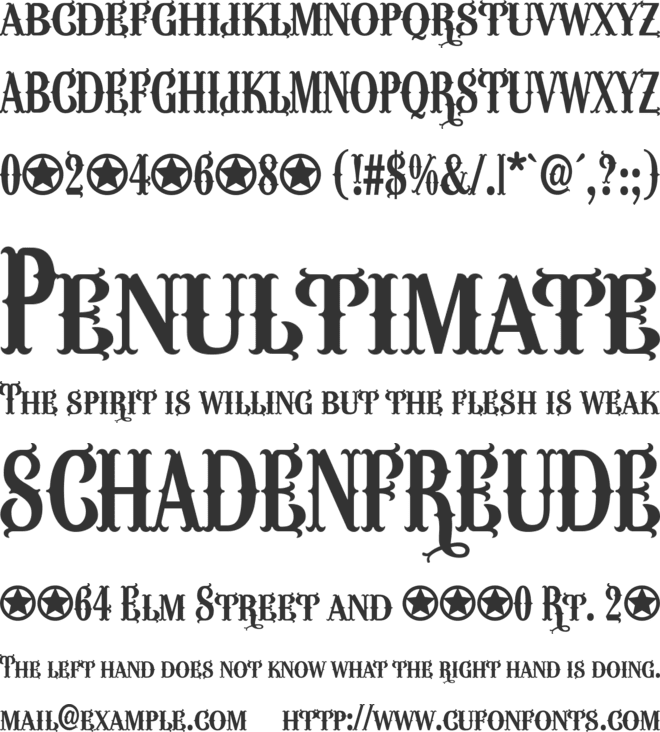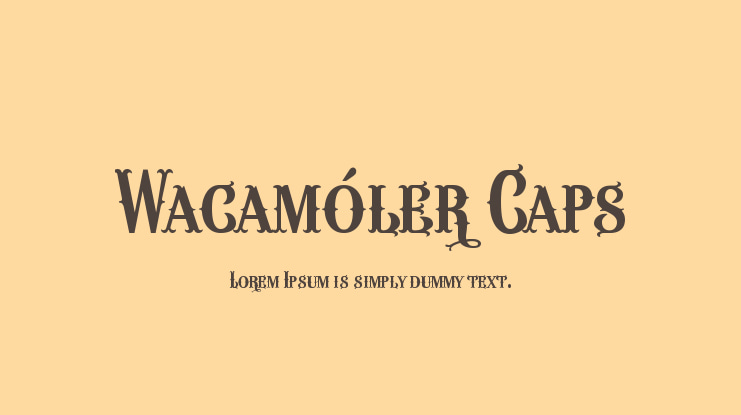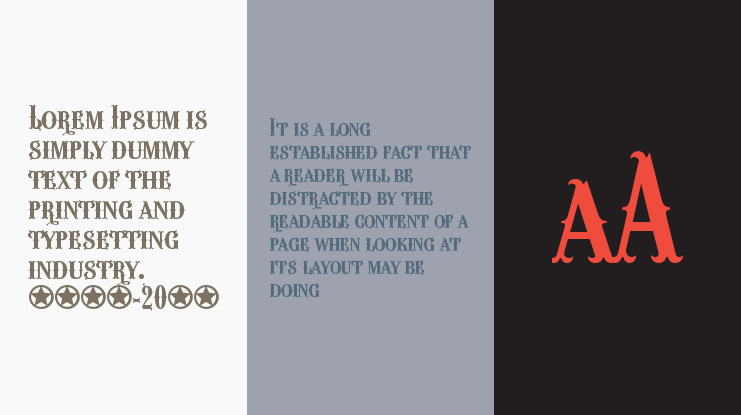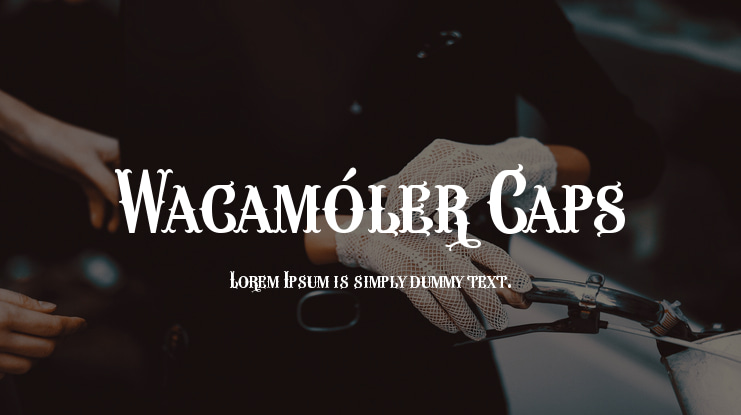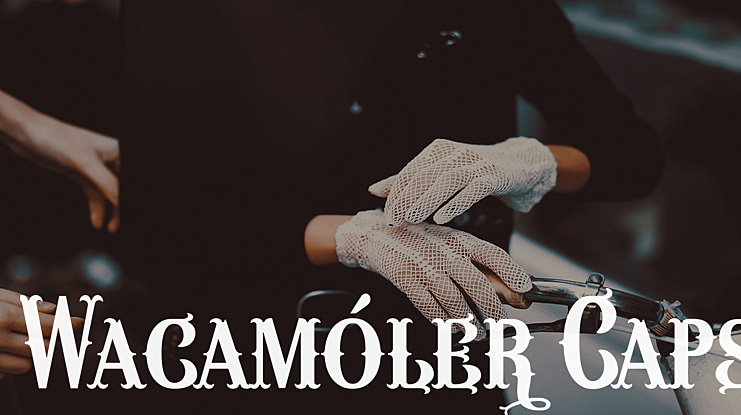
Wacamóler Caps Font
Wacamóler is a western movie typography, small capitals inspired opening credits of the Western: Winchester '73 directed by Anthony Mann in 1950.
The commercial version has 500 glyphs (Latin Extended) Open Type includes functions for standard ligatures, alternate letters, old style numbers, numerators, fractions and the Greek alphabet.